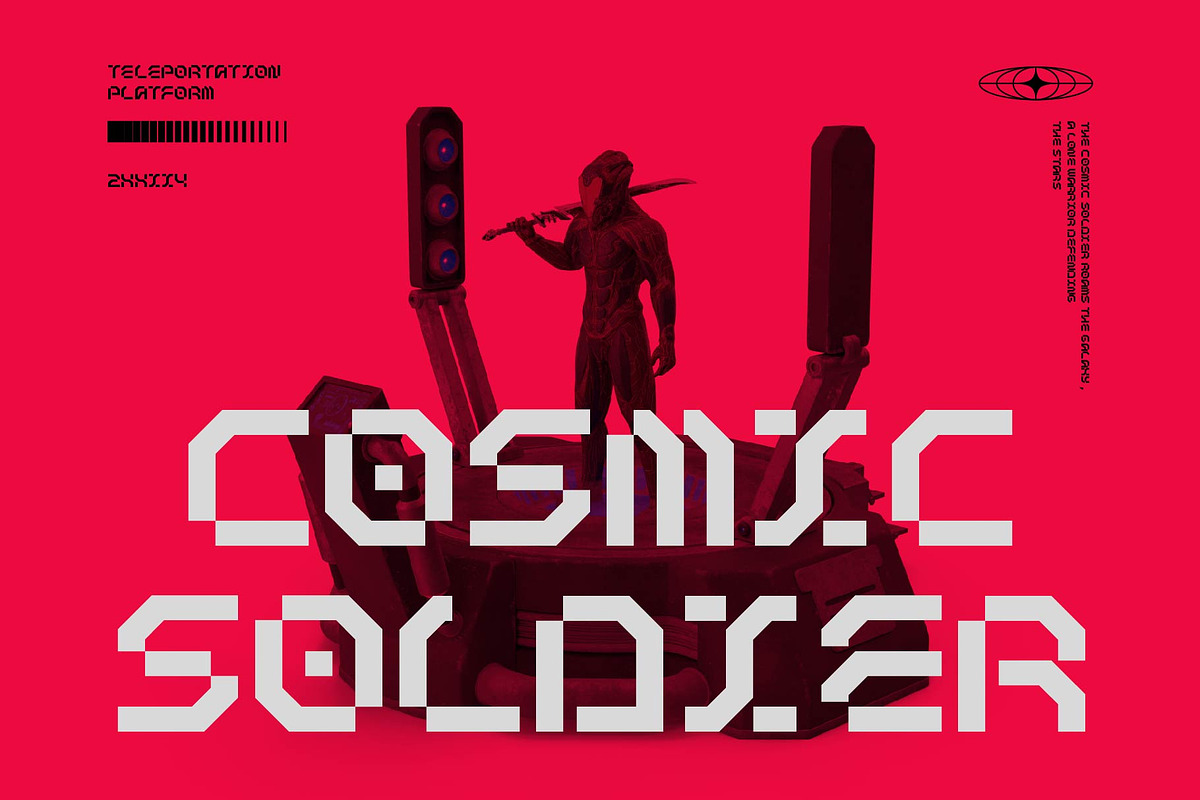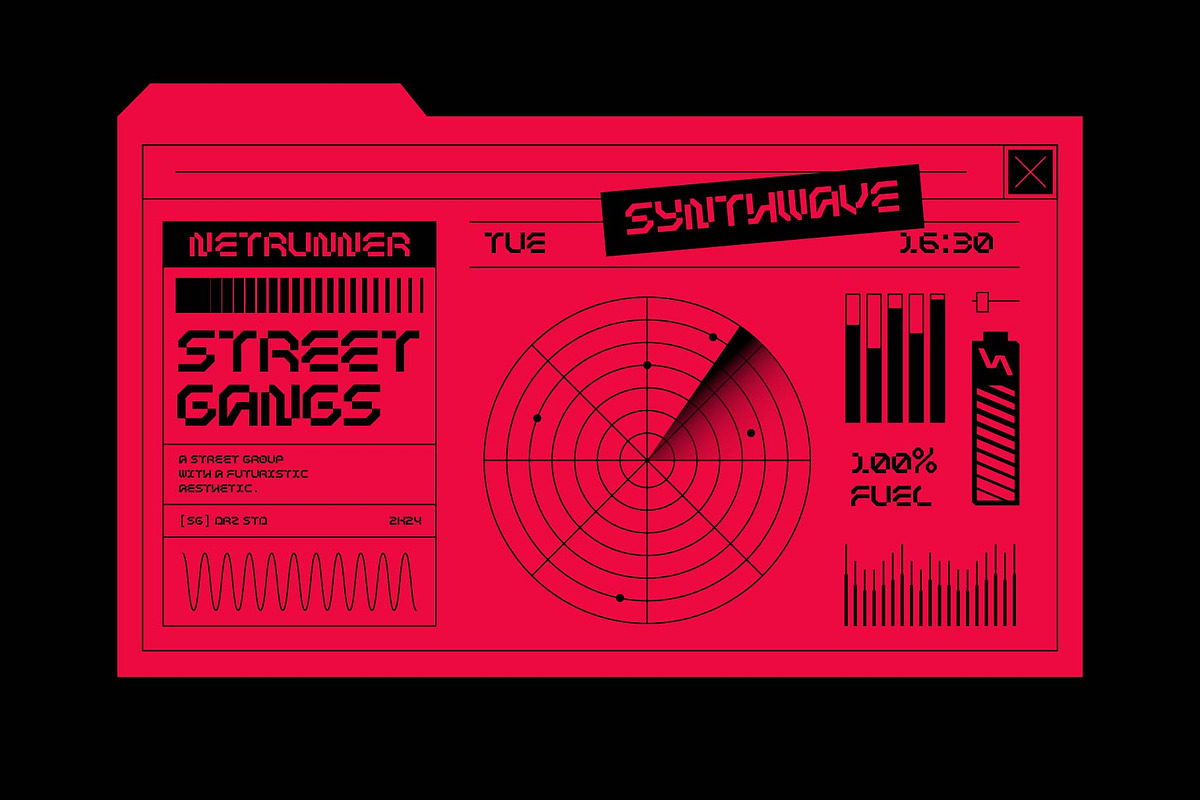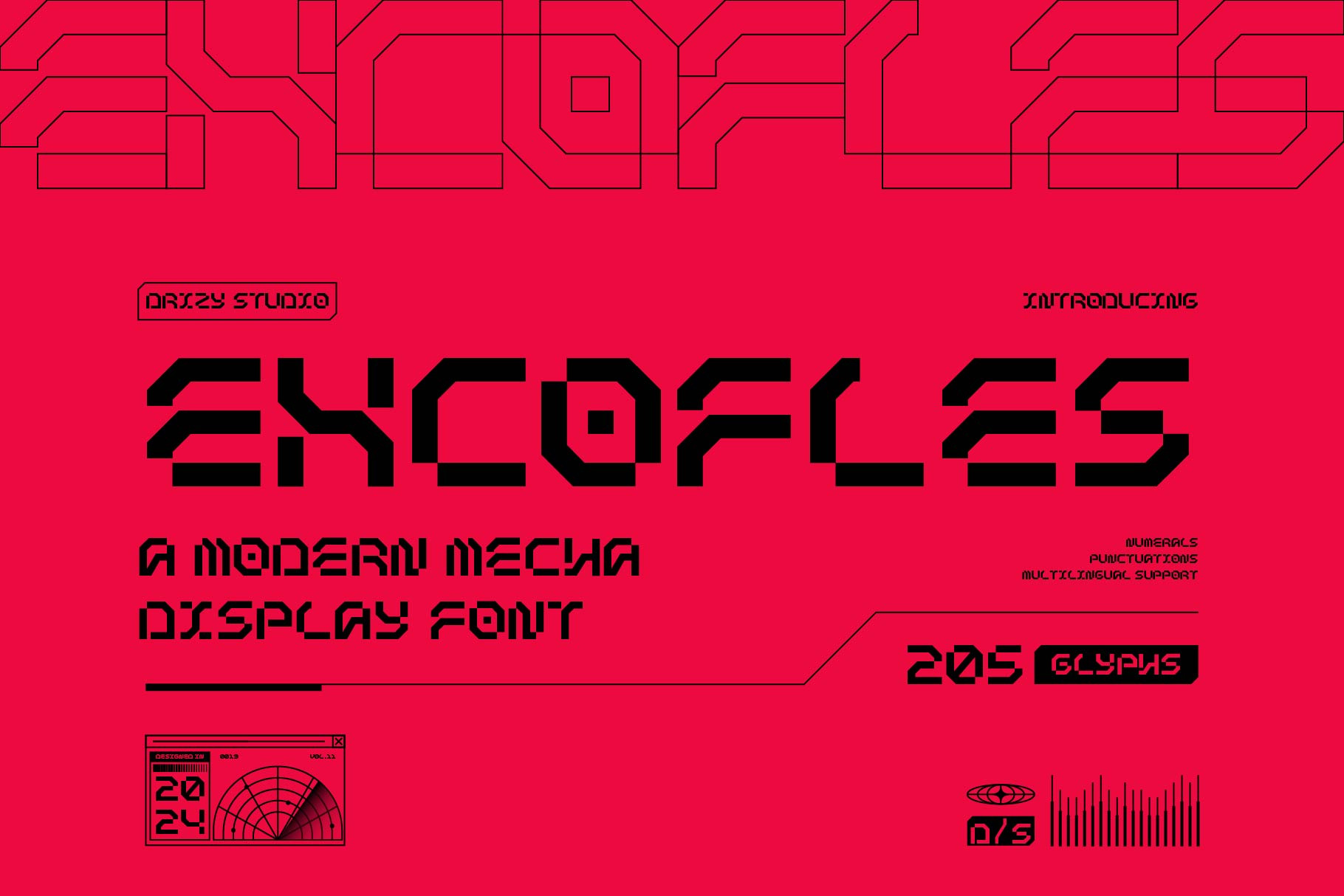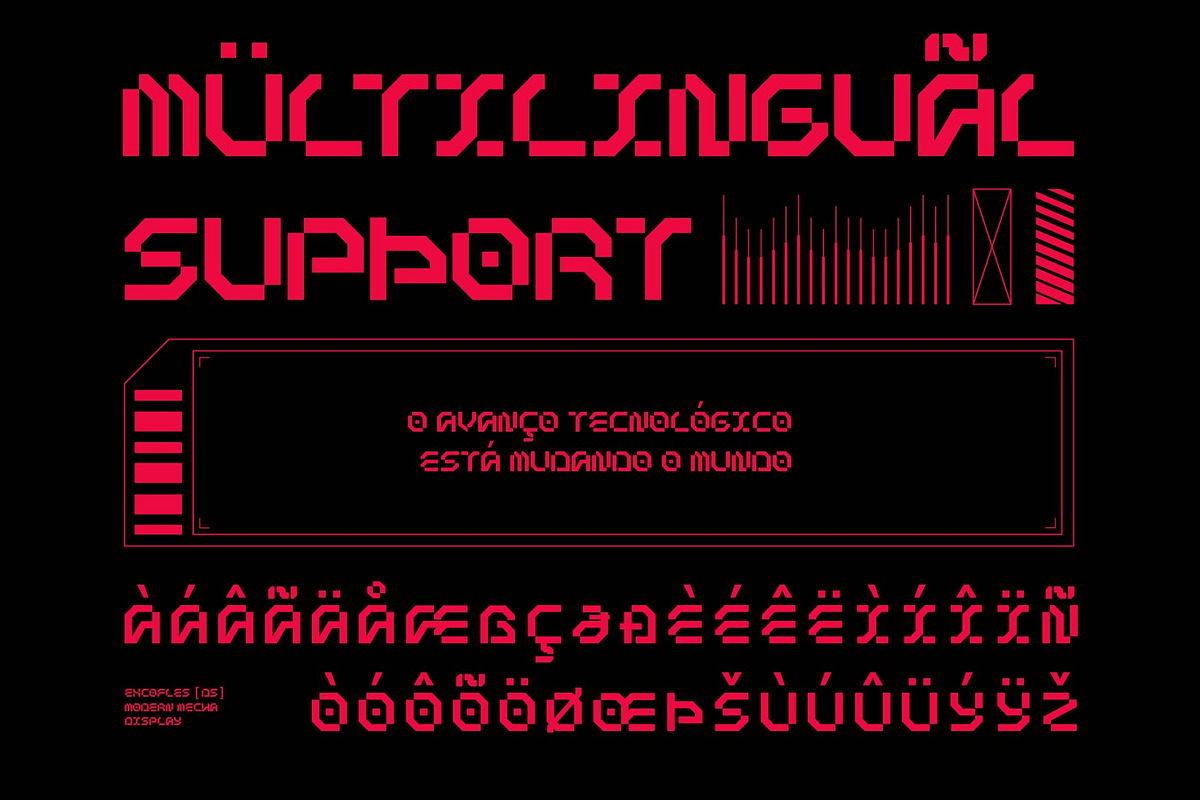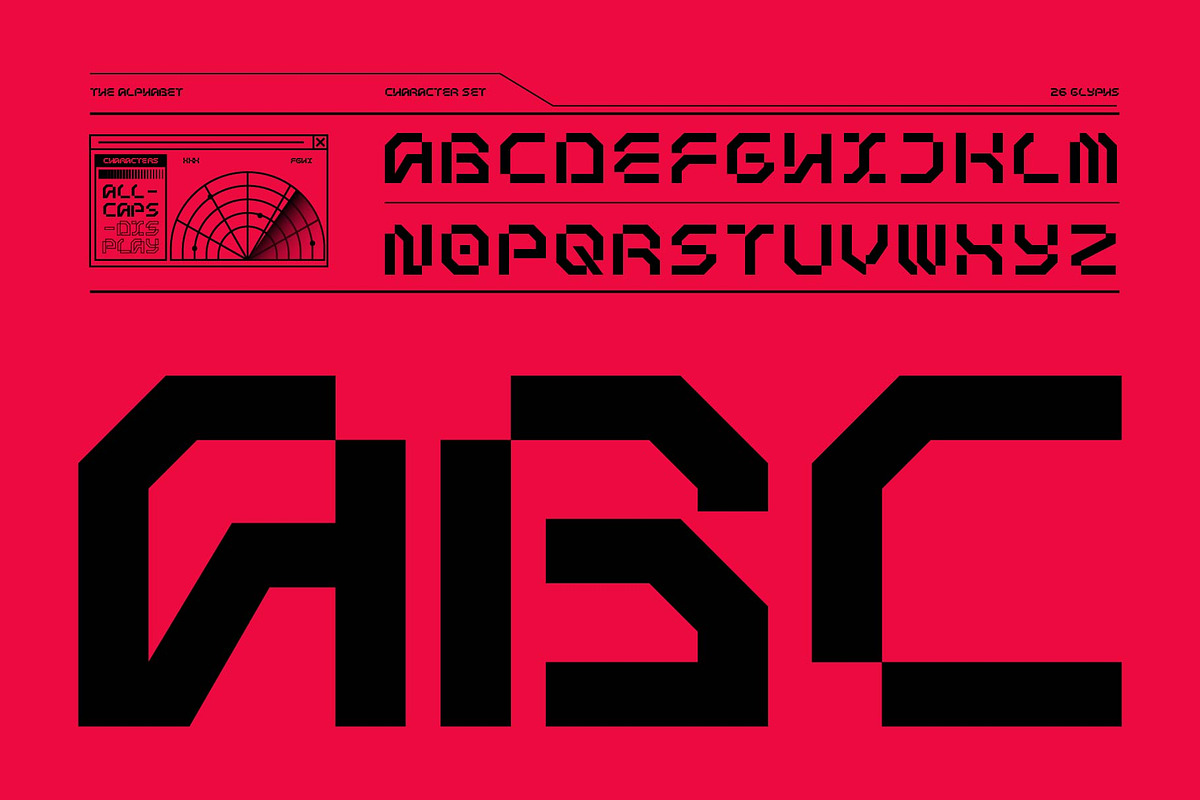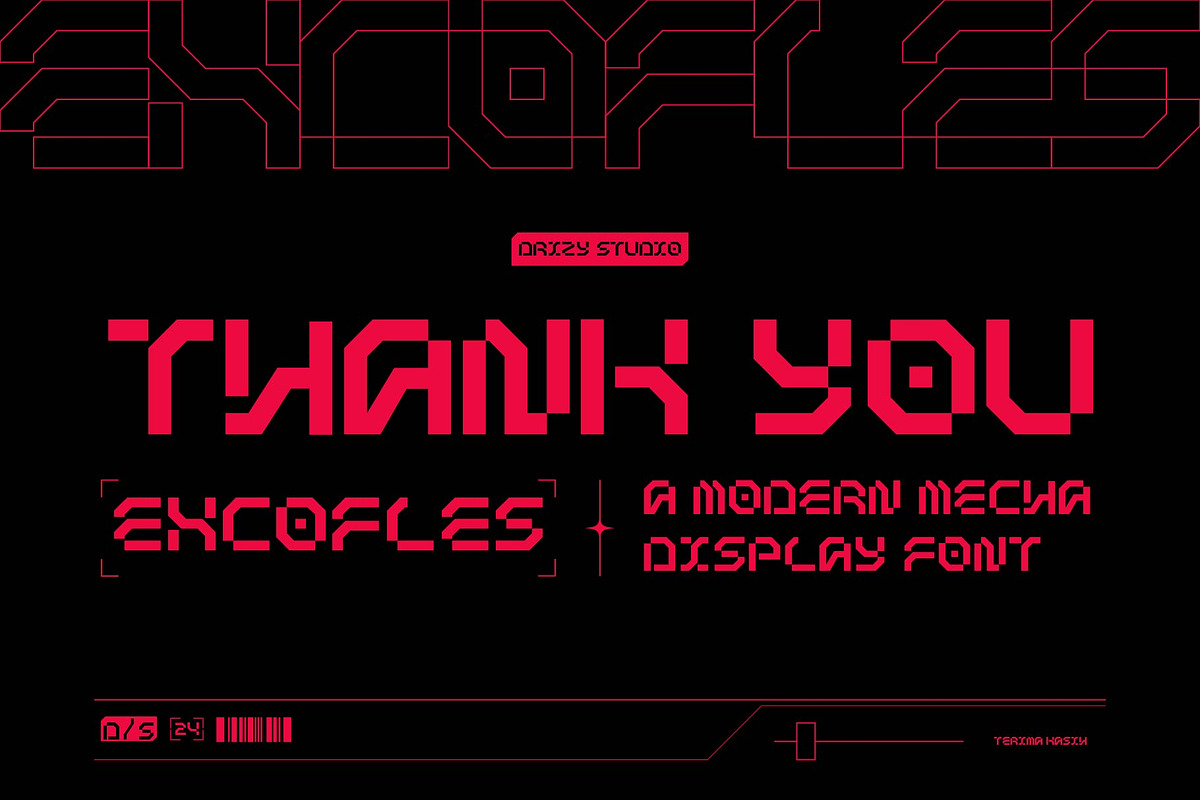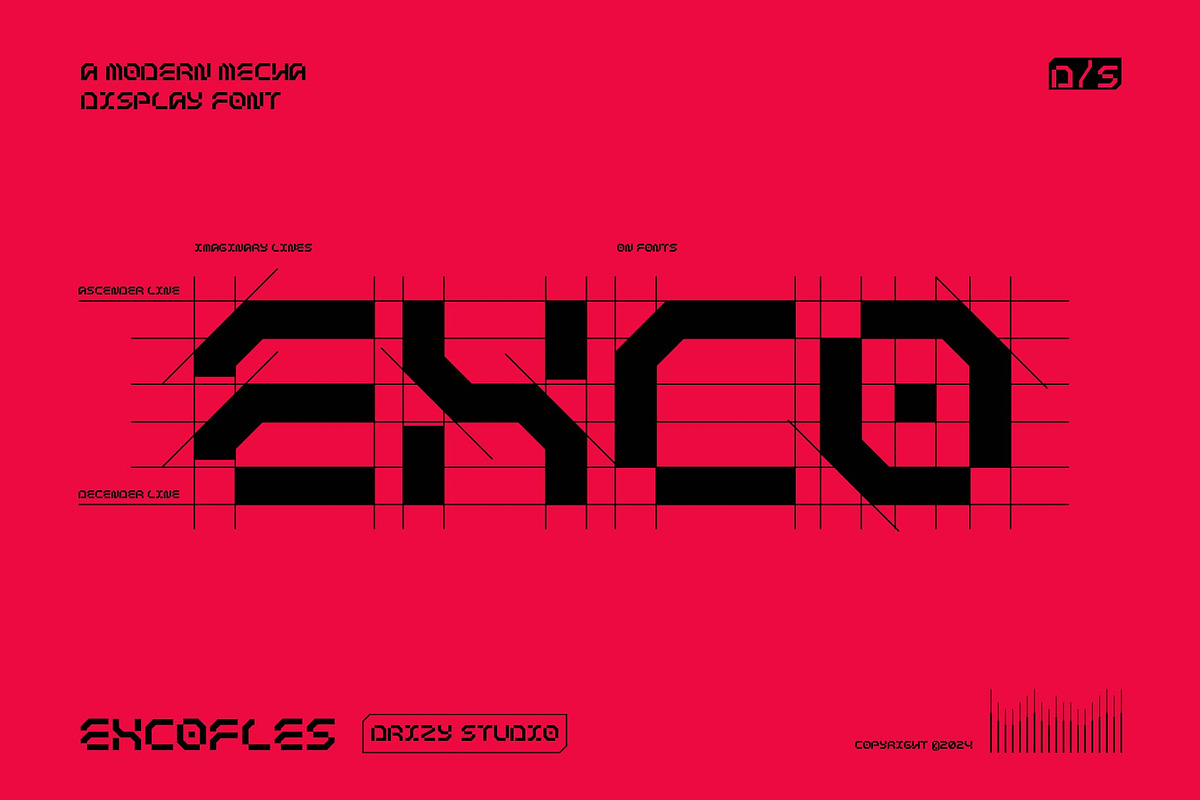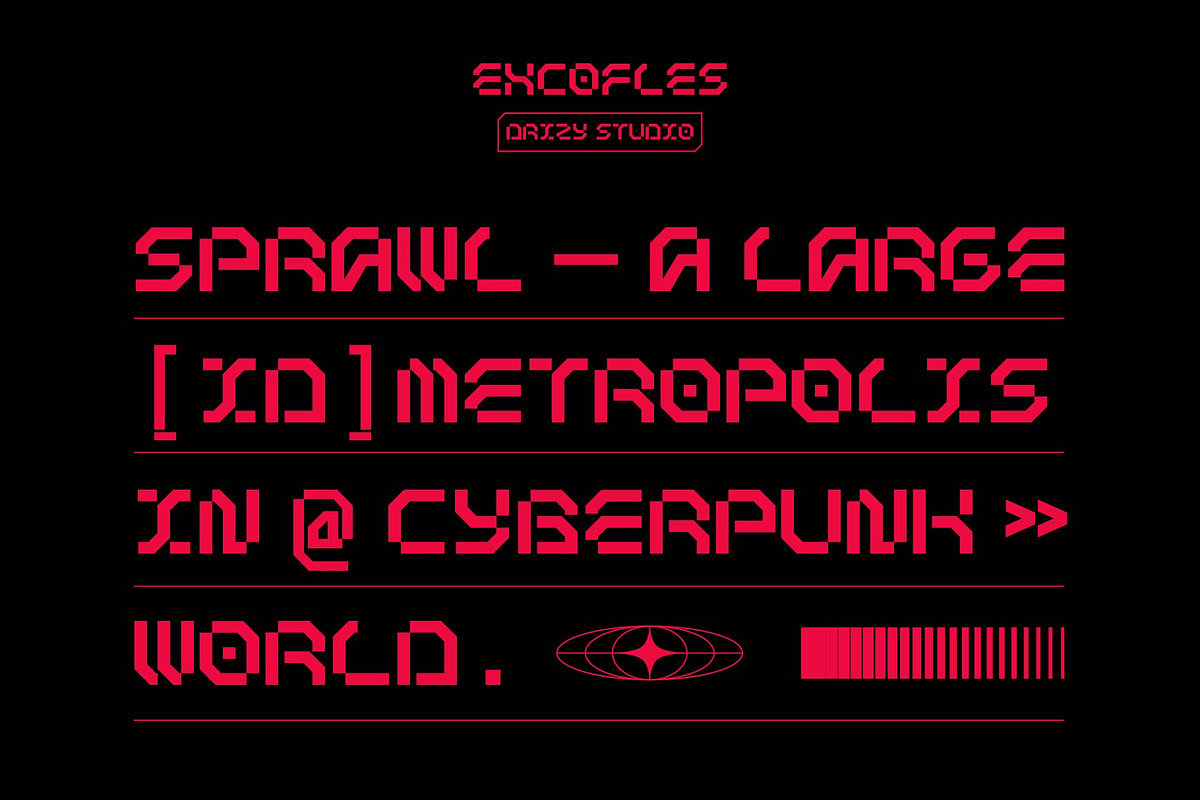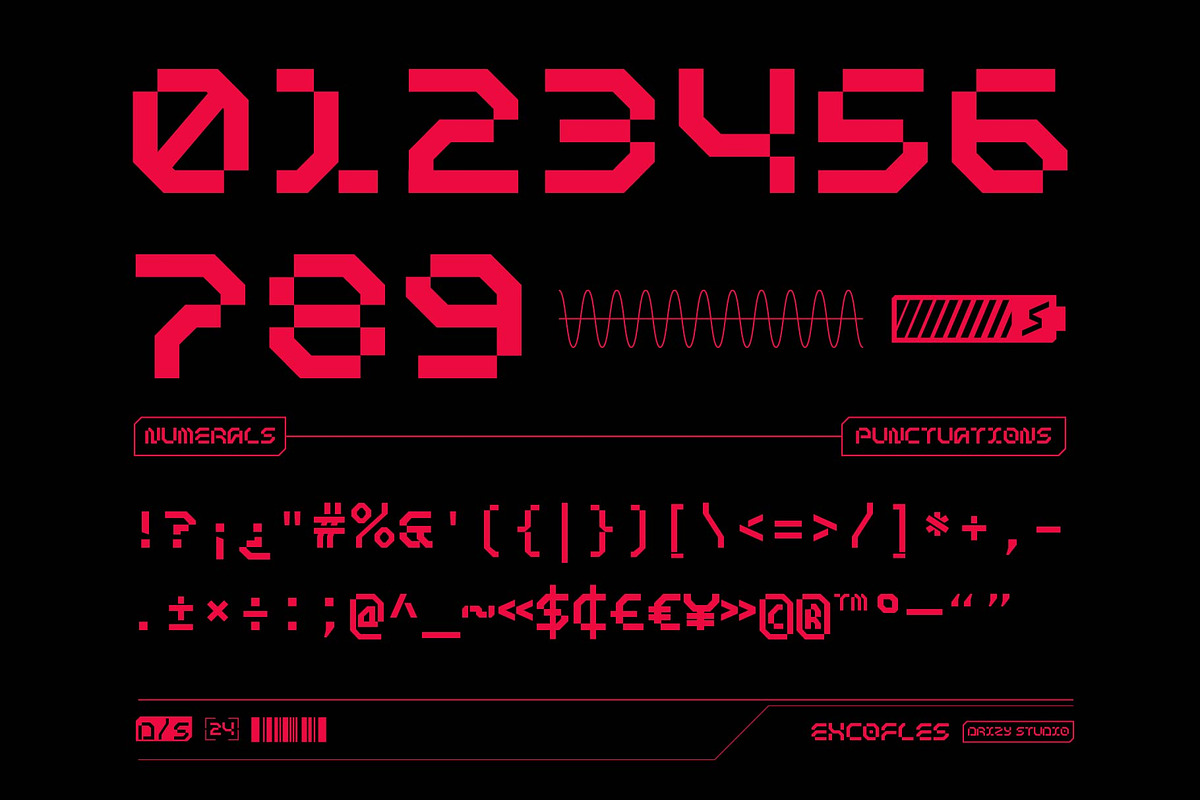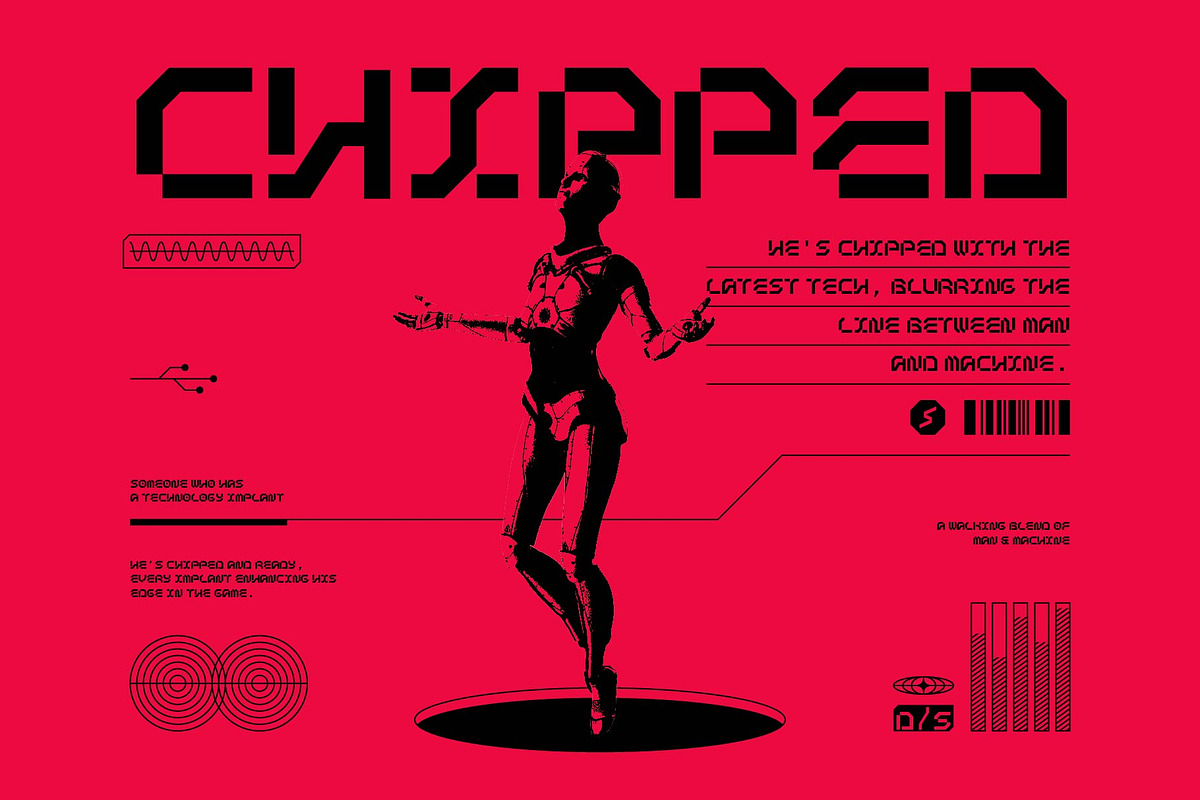
Excofles – Modern Mecha Display Font
Excofles is a cutting-edge typeface designed for the dynamic world of esports and gaming. With it’s bold, angular strokes and futuristic design, Excofles captures the energy and intensity of competitive play. It’s sharp edges and sleek geometric forms make it perfect for logos, branding, and in-game visuals. Whether you’re creating overlays, team merchandise, or promotional graphics, Excofles adds a tech-driven, high-impact aesthetic that resonates with modern gamers and Esports Design enthusiasts.
Excofles features:
- Character Set (All Caps)
- Punctuation & Numbers